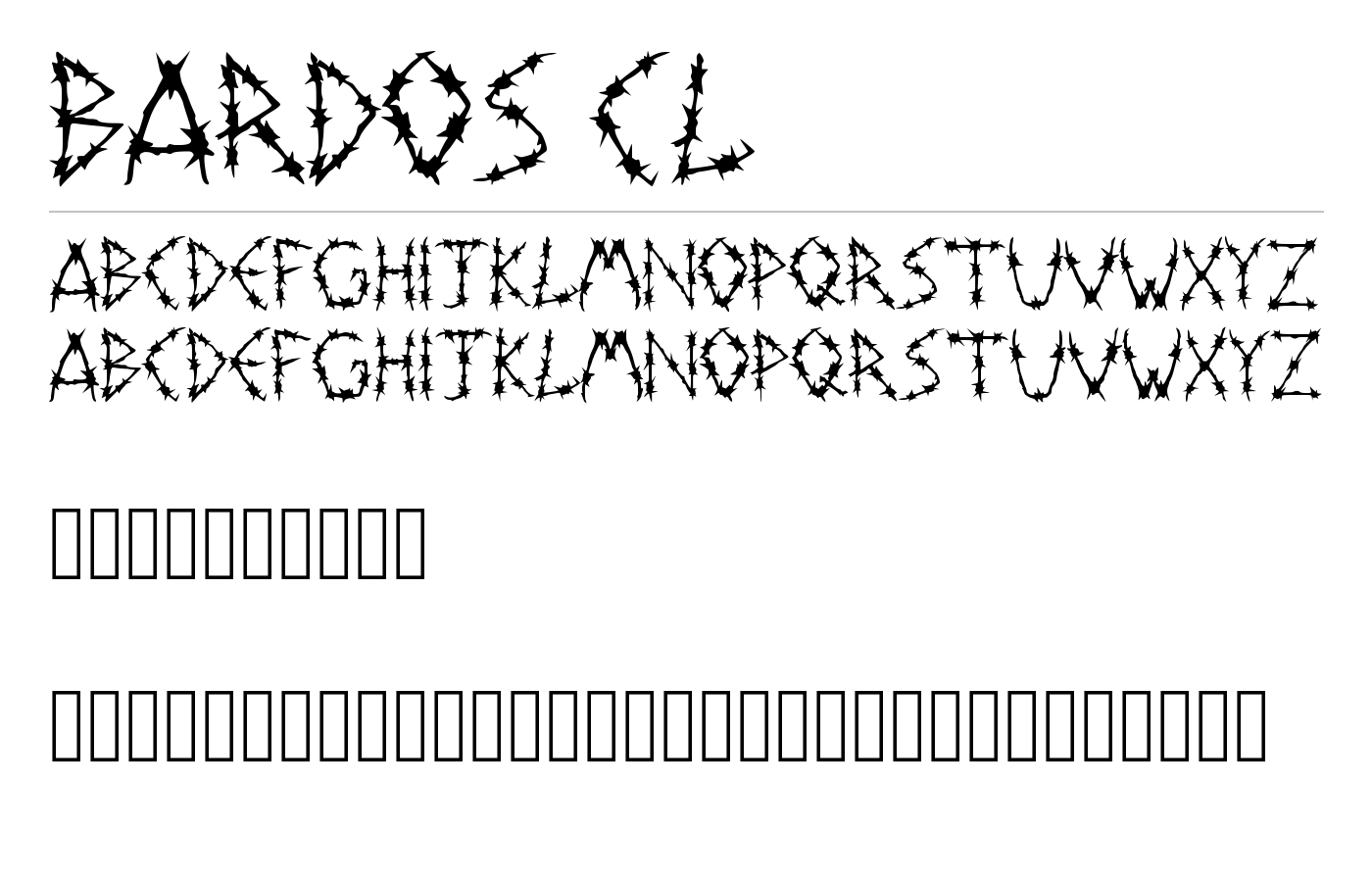
Bardos Cl is a striking decorative font characterized by sharp, thorn-like serifs that give it a bold, edgy appearance. Its irregular, jagged strokes and uppercase letterforms create a dramatic and intense mood, making it ideal for themes related to horror, punk, or gothic styles. This font works best in headlines, posters, and designs that seek to grab attention with a dark, rebellious personality.
Bardos Cl Font
About Bardos Cl Font